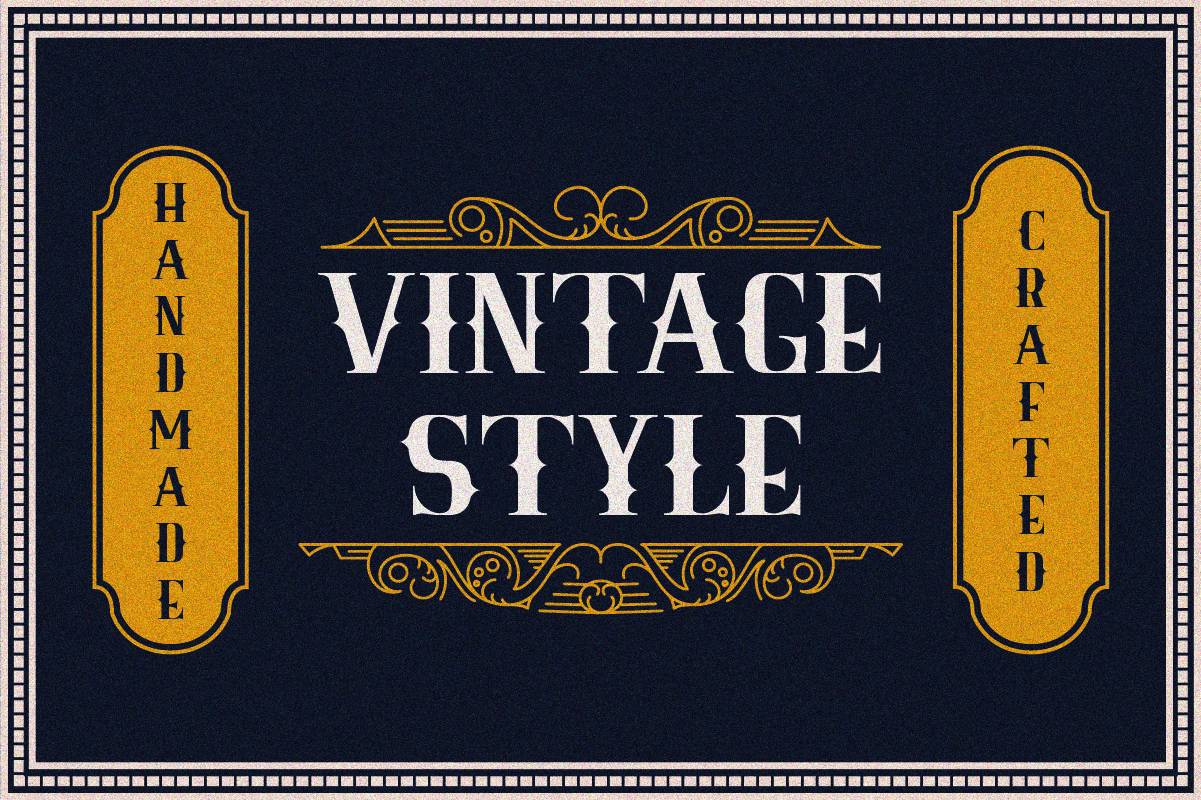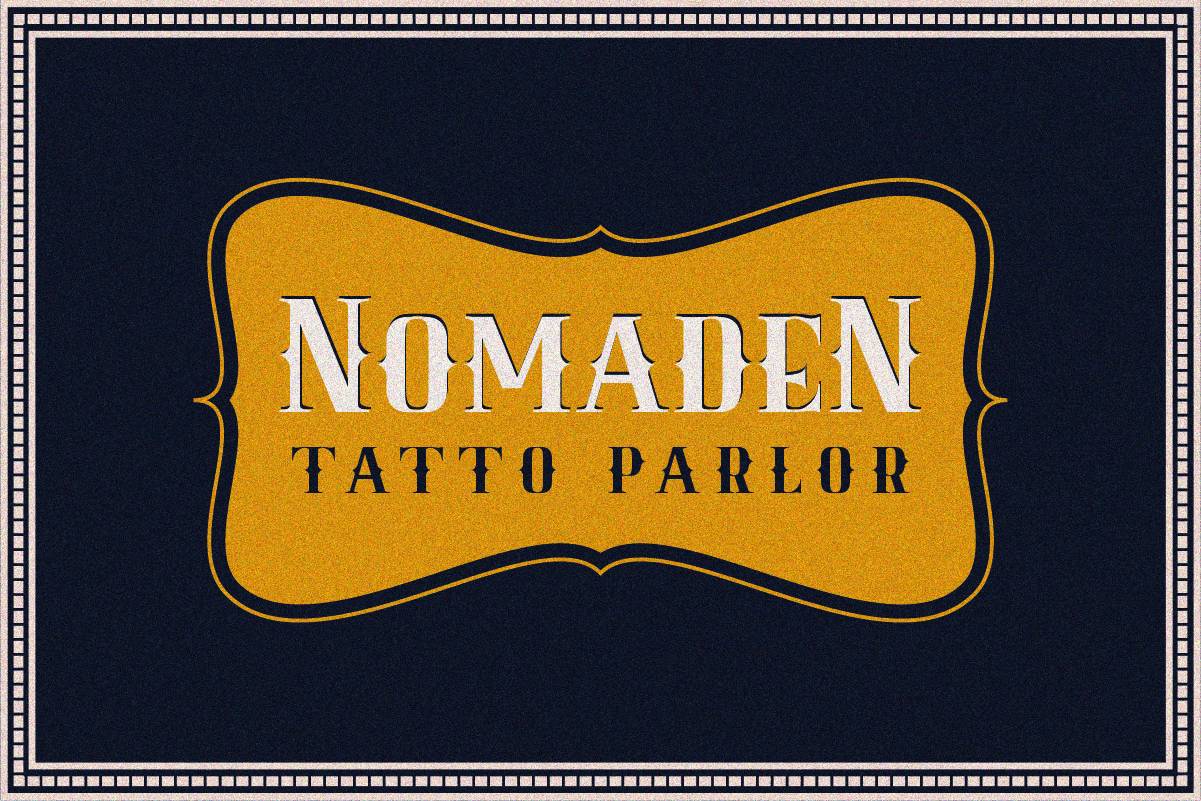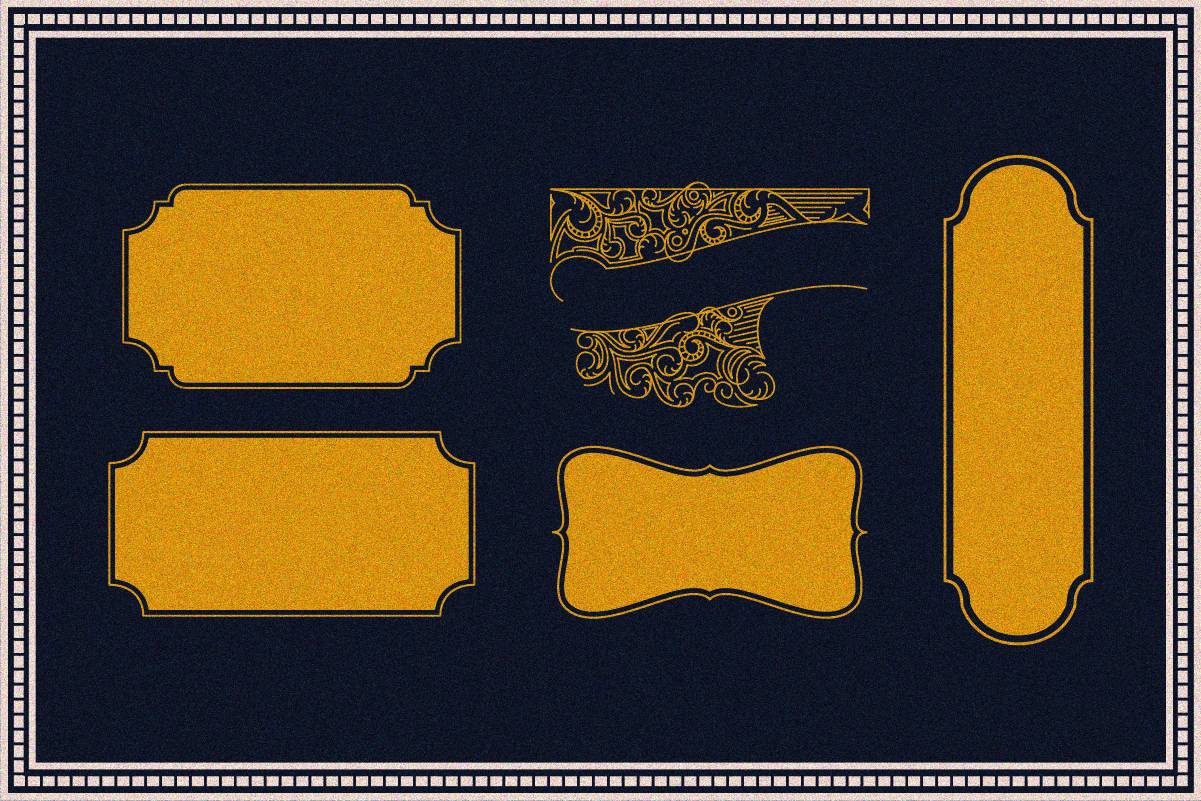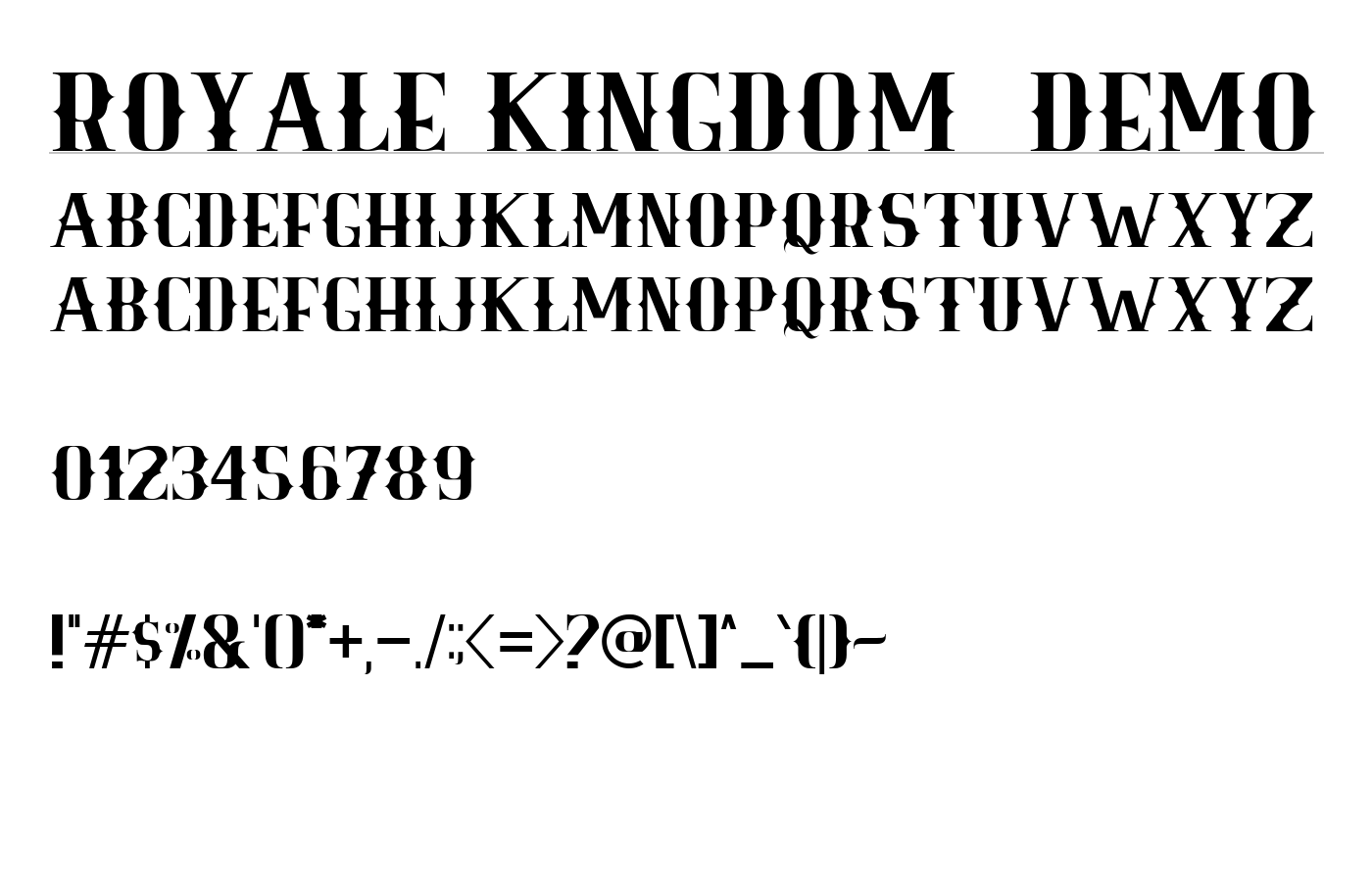
Royale Kingdom is a bold serif font with a strong, condensed structure and high contrast between thick and thin strokes, giving it a dramatic and regal feel. Its sharp, stylized serifs and unique letter details make it perfect for luxury branding, headlines, and designs that require a vintage yet commanding presence. This font works especially well in logos and packaging where an elegant, sophisticated impression is desired.
Royale Kingdom Font
About Royale Kingdom Font
| Font family | Royale Kingdom Font |
| Designer | Muhammad Fathi Al Ghazi |